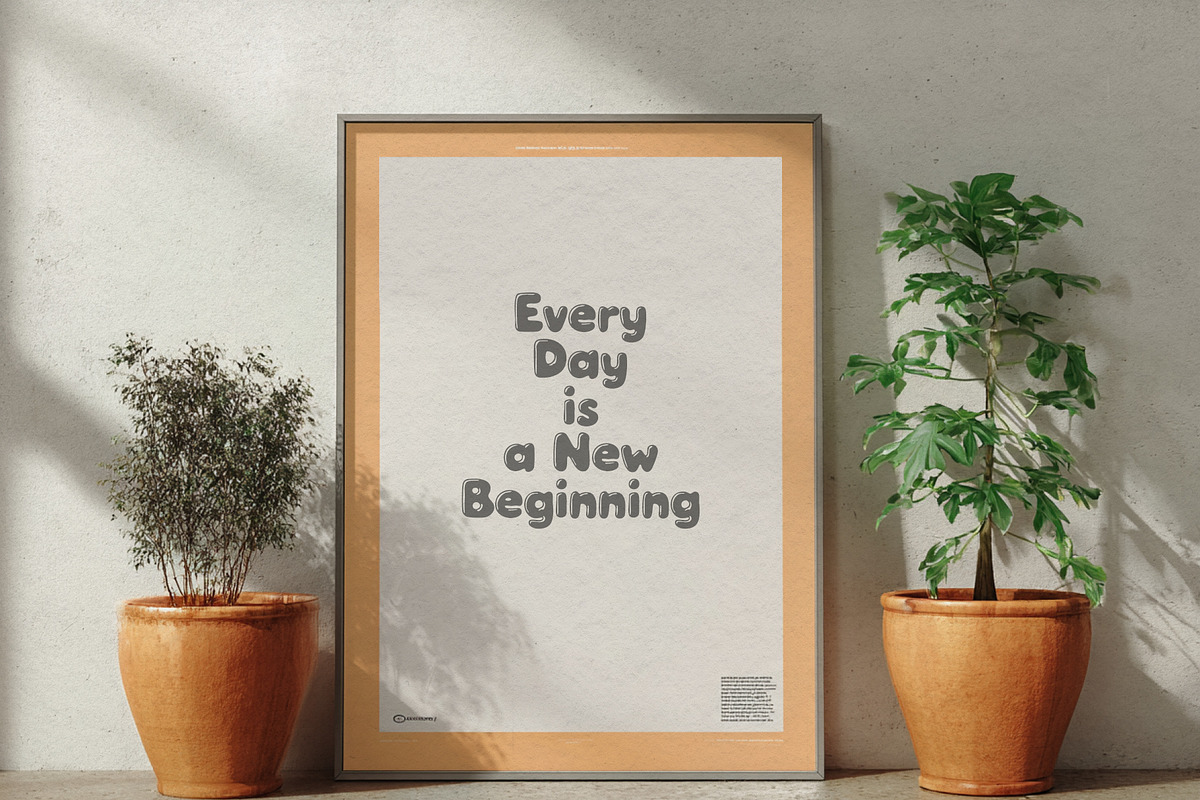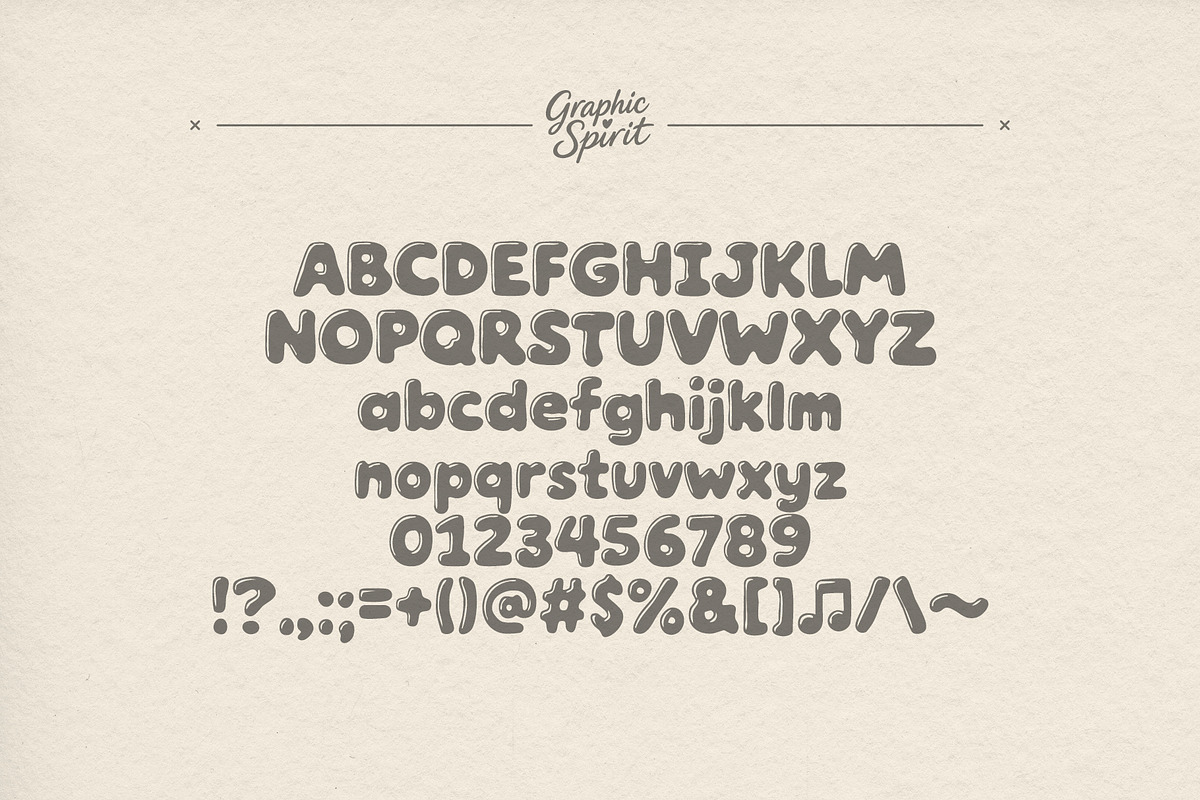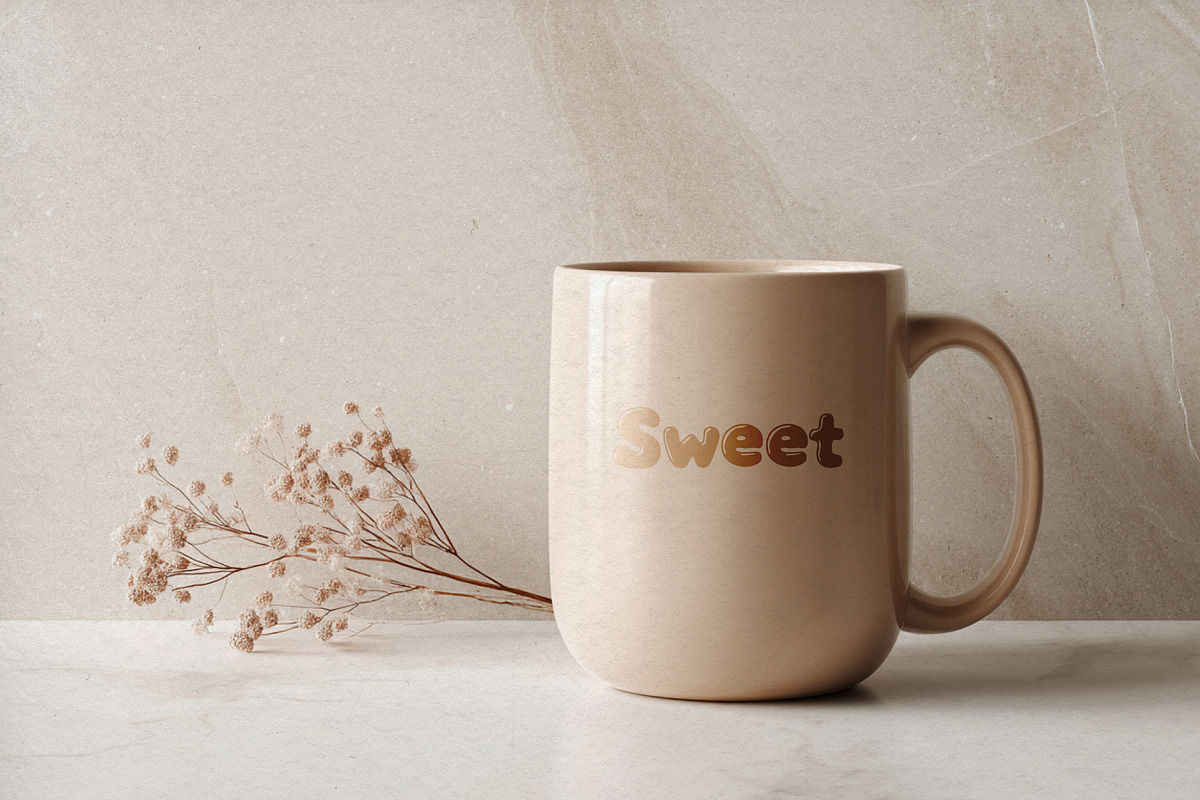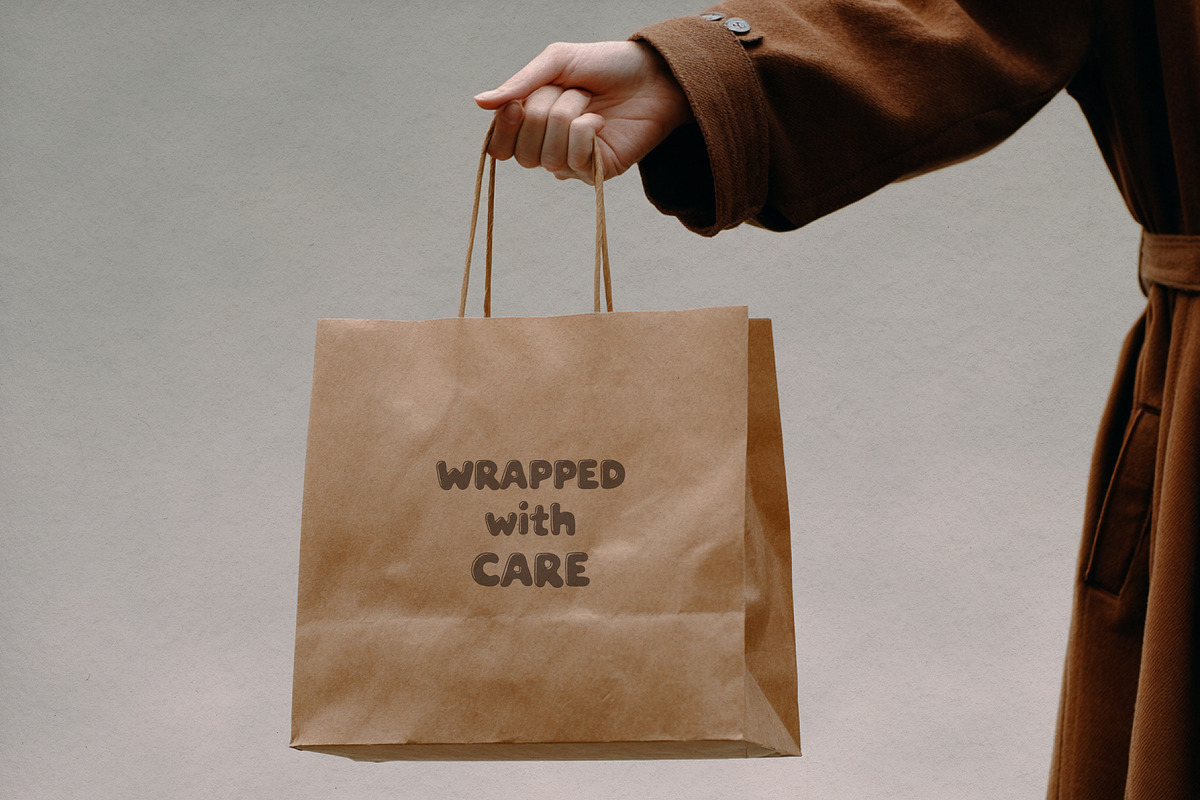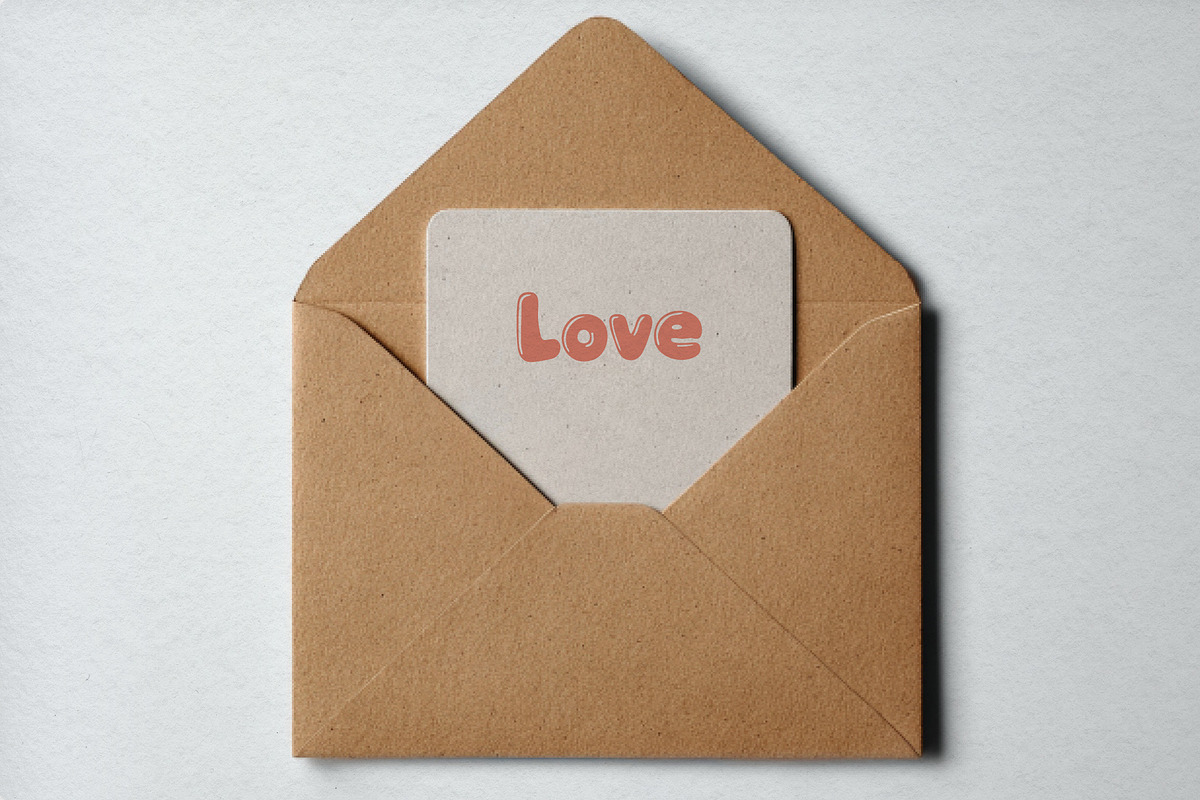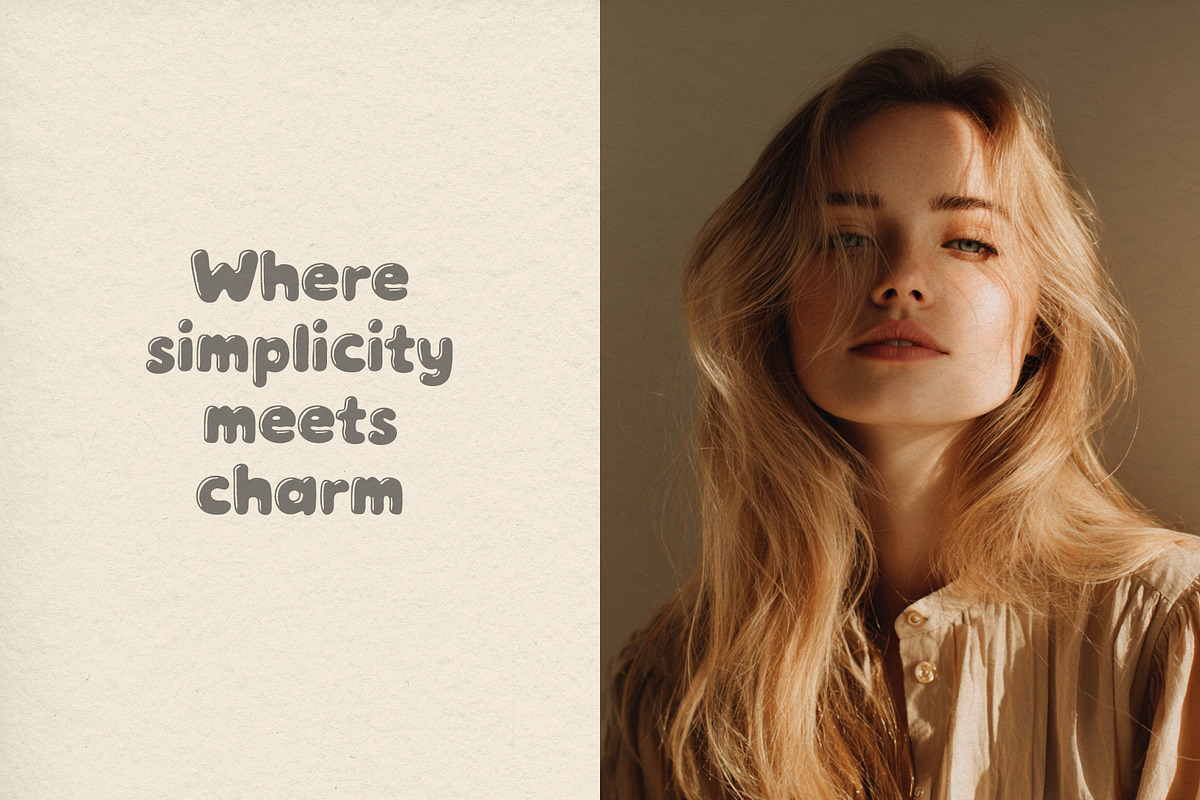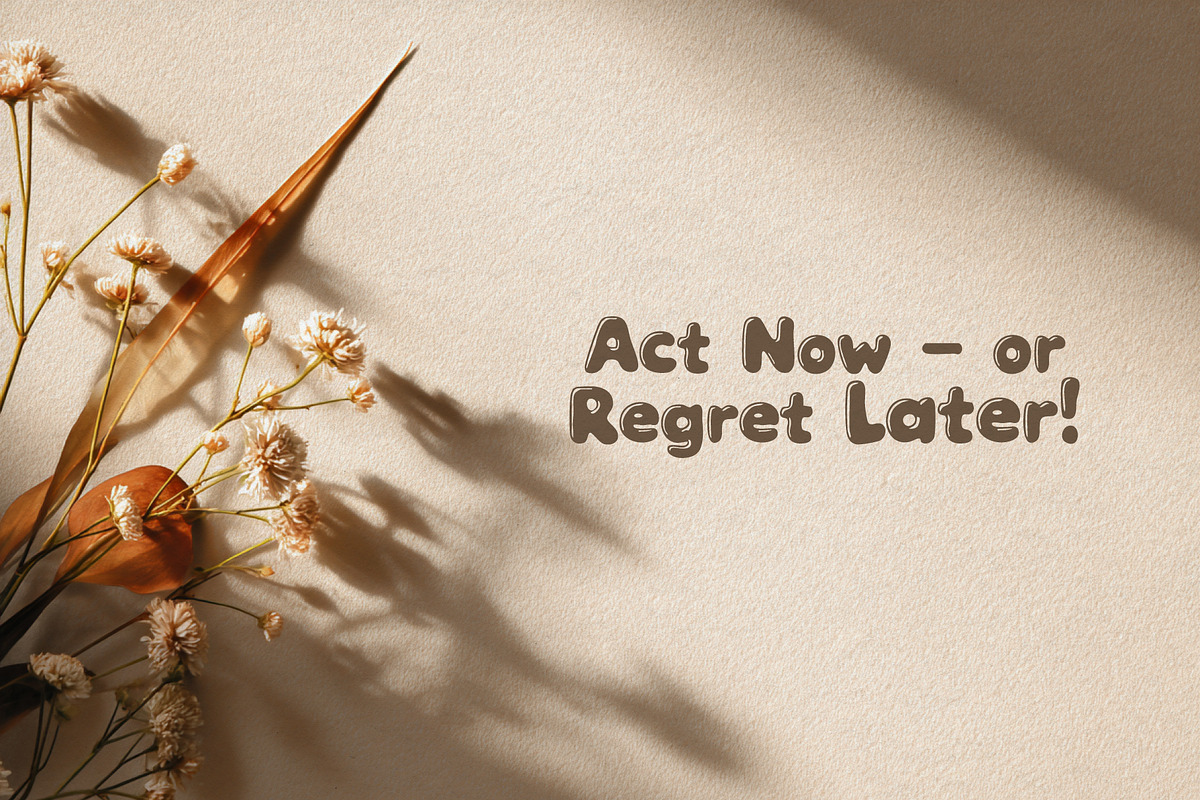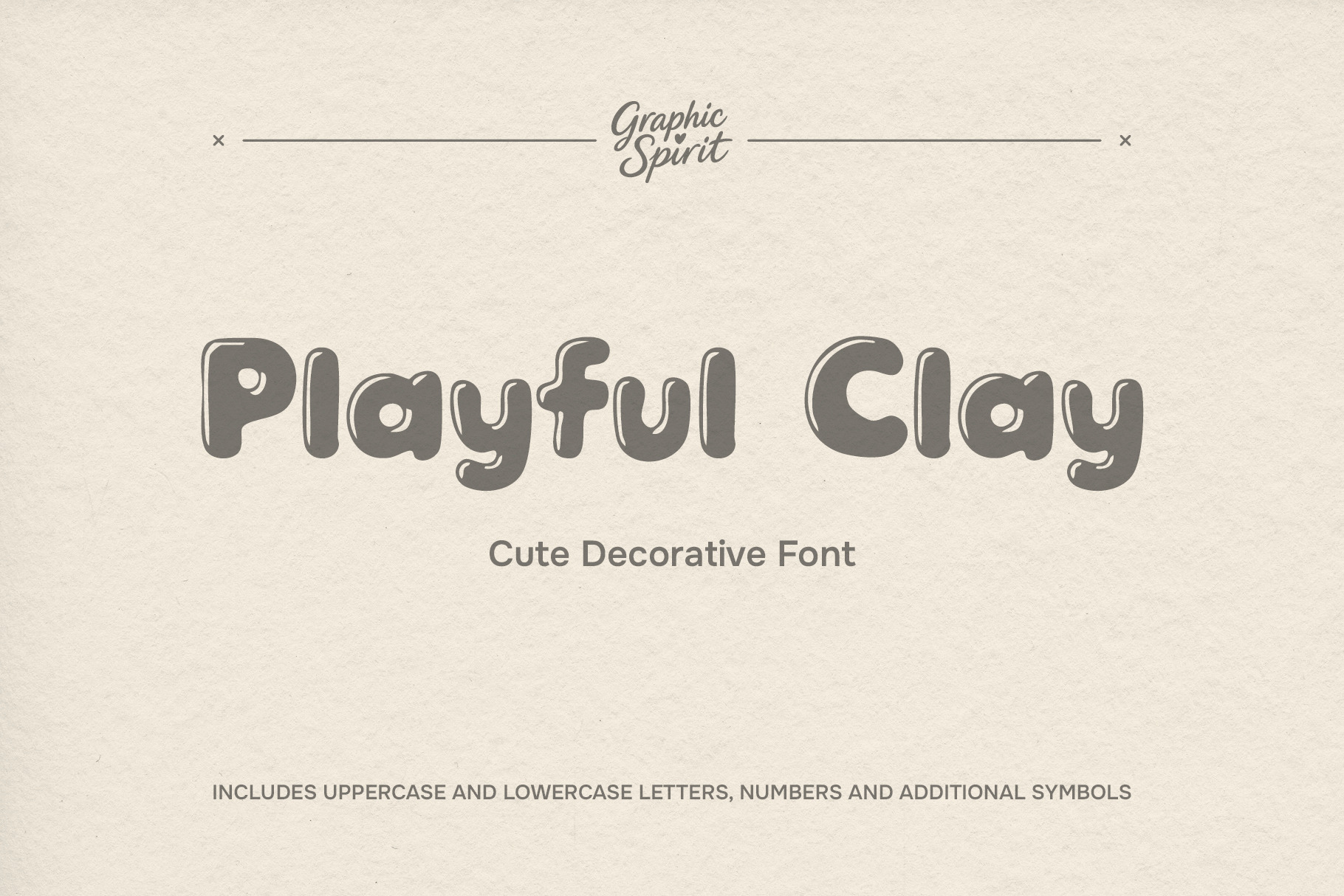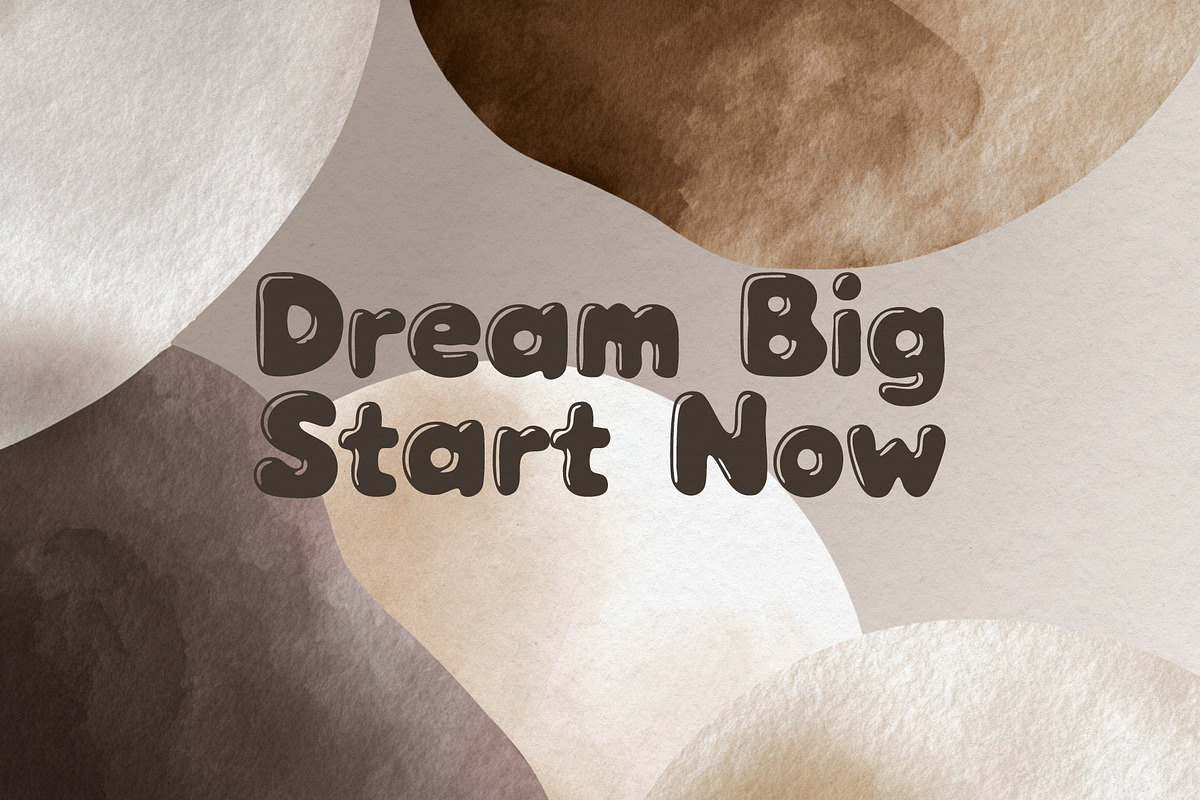
Playful Clay Cute Decorative Font
✨Add a touch of handmade whimsy to your designs with Playful Clay! This adorable decorative font features charming, irregular letterforms that look like they were crafted from clay. Each character boasts unique textures and slight imperfections, giving your projects a warm, approachable, and utterly delightful feel.🌟
Perfect for children's branding, greeting cards, social media quotes, and any project needing a dose of friendly personality. This is a digital download only, including uppercase, lowercase and numerals. Instantly elevate your creative work with this cute and crafty typography!💖